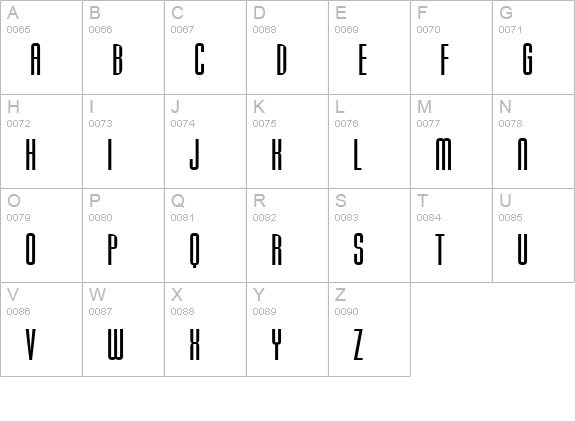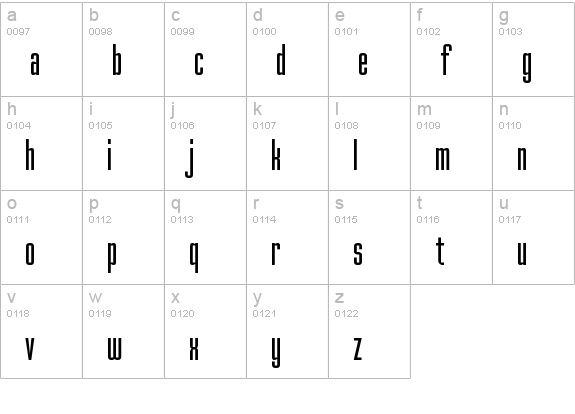
S750-Sans-Regular Font Details
S750-Sans-Regular is the standard, neutral variant in the S750 typeface family \xE2\x80\x94 well suited to general body text, paragraphs, and standard typographic work.
S750-Sans-Regular is a versatile and modern font that offers a clean and professional look suitable for a wide range of design projects. This font features a sleek and minimalistic design, making it perfect for branding, advertising, editorial design, and more. What sets S750-Sans-Regular apart is that it is available for free download at FontsMarket.com. This means that you can access this high-quality font without any cost, making it a valuable resource for designers and creatives looking to enhance their projects with a stylish and contemporary typeface. With its balanced proportions, elegant curves, and excellent readability, S750-Sans-Regular is a must-have font for anyone looking to add a touch of sophistication to their designs. Whether you're creating a logo, website, poster, or any other visual content, this font is sure to elevate your work and leave a lasting impression on your audience. Download S750-Sans-Regular for free today and take your design projects to the next level!